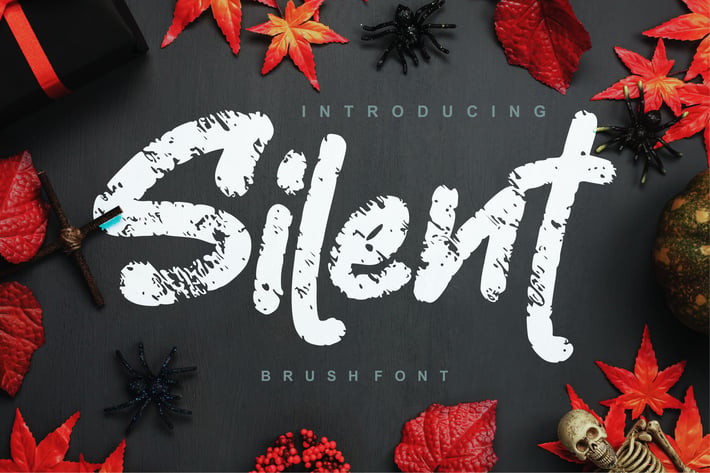
Silent | Decorative Brush Font
Silent | Decorative Brush Font with a calligraphy style, So beautiful on invitation like greeting cards, branding materials, business cards, quotes, posters, and more!